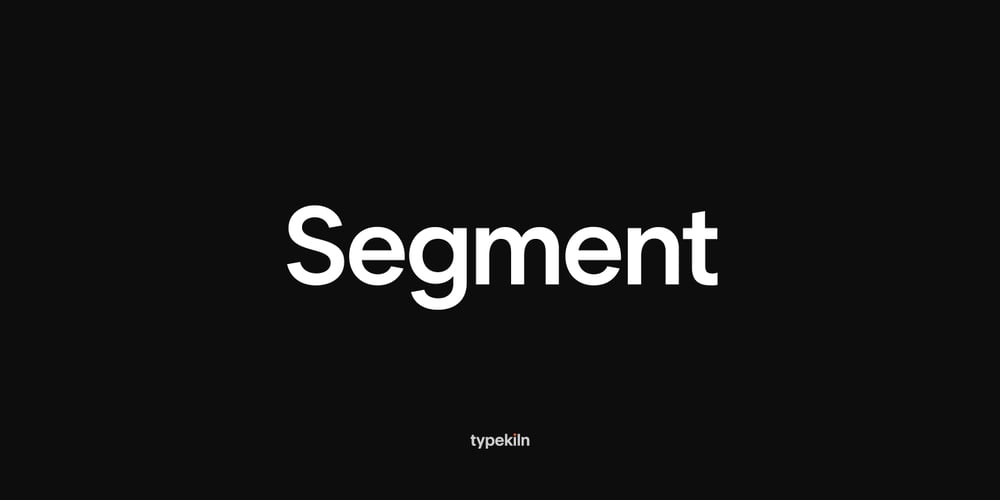
Segment Font Family was designed by Krishna Kireeti and published by Typekiln. Segment contains 18 styles and family package options. Segment is a modern geometric sans serif typeface designed by Krishna Kireeti and published by Typekiln in 2020. The shapes of the letterforms are derived from optically adjusted geometric shapes and are designed with minimal stroke contrast. The subtle angled terminal ends of the open apertures create more open, inviting, warm and a very lucid design making Segment suitable for all typographic needs from print to interaction design.Segment font family comes in 18 different fonts with 9 uprights ranging from Thin to Black and matching italics. It supports 77+ languages including all major Latin-based languages. It is also equipped with serious OpenType features like stylistic alternates, case sensitive forms, ligatures, tabular figures, proportional figures, fractions, superscripts, ordinals, capital spacing and more.